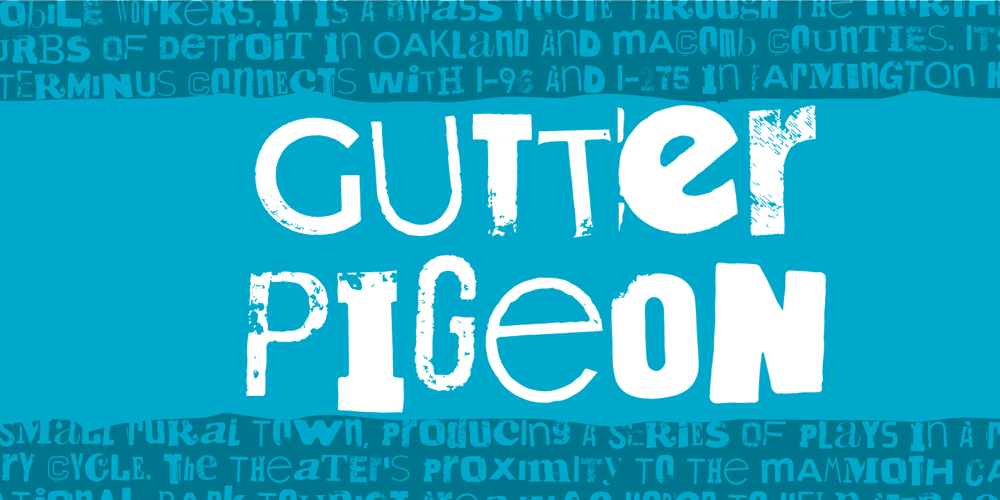
Gutter Pigeon Font Family was designed by Jakob Fischer and published by PizzaDude.dk. Gutter Pigeon contains 1 styles and family package options. Gutter Pigeon is not your every-day Ransom-kind-of-font! The prices of making it was really simple: I only used my phone and computer. I took pictures of letter from newspapers, magazines, bookcovers, candybars, movieposters, roadsigns, etc. In the beginning, It was easy to find new letters. But as I had the initial letters, it became quite a search for the missing letters. Not a hard job, you may think – but this font has 8 different versions of each letter! That’s 26 lowercase glyphs and 26 uppercase glyphs…8 times! That’s more than 400 glyphs! And on top of that comes numbers and punctuation! Go crazy with Gutter Pigeon! Actually, that is not very hard, because the font automatically cycles through the 8 different versions of each letter while you type! Upper- and lowercase in a wild mix!